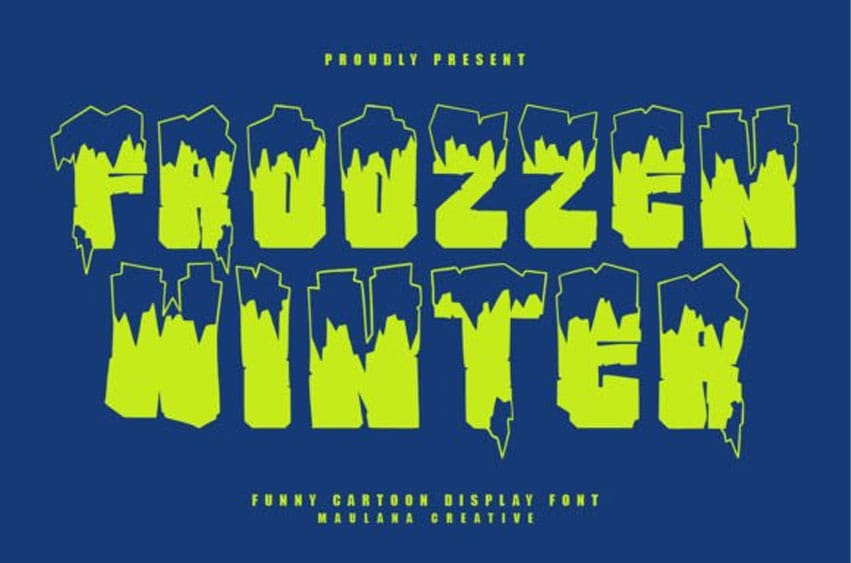
Froozzen Winter Font is a fun, handmade winter display font with an ice-cold stroke and playful characters. It includes alternates to boost your creative projects.
Froozzen supports multiple languages and is great for logo design, social media, movie titles, book titles, short or long text, and pairs well with sans or serif fonts for secondary text. Create stunning designs with the Froozzen font!